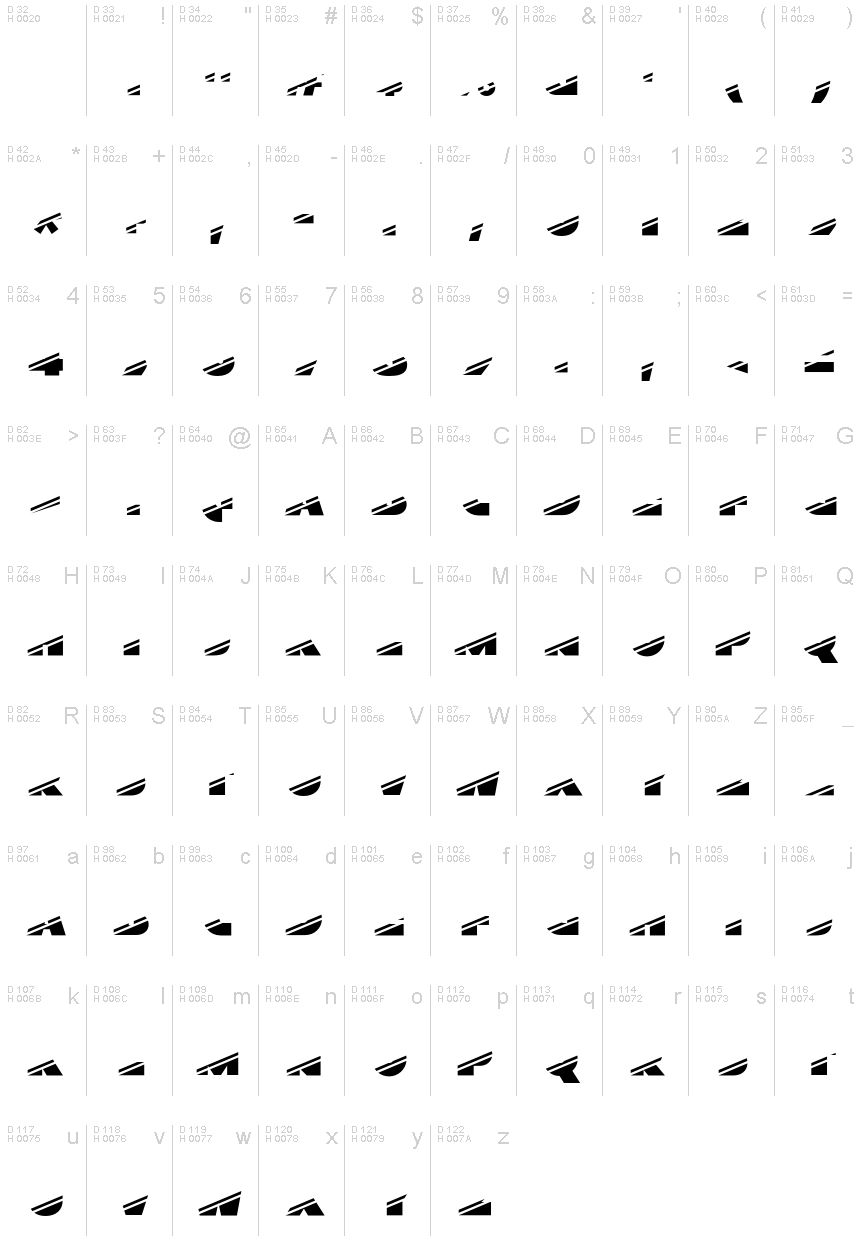
Xylitol is a multiple layer typeface you can use for creating chromatic, 3D effects. Its designed so the letters fit tightly together like Tetris blocks. There are four directional layers for the sides so you can simulate light coming from various directions. Theres a stripe layer which can be used to created a metallic shimmer effect. The Hollow style is made of thin outlines and has multiple uses. Use it on its own for a engineery, blueprint look. Make it black and overlay it on solid colors for a stained glass effect. Set it to 50% gray and use a screen or color dodge effect at around 25% opacity to create a subtle sharpening effect. The solid layer can be offset to simulate a drop shadow. The Xylitol family includes a Solo style which has more conventional spacinghandy when you need accompanying flat text. An outline style is useful on its own of for doing layer transparency tricks. Xylitol supports lot of languages including Greek and Russian.
Its all about experimenting but here are some tips to get you started:
Youll need to use an application that allows you to overlay layers of text. Every application has a different way of dealing with this but generally, you type what you want, make several overlapping copies of the layer then alter each layers color and style.
Some applications, like Photoshop ignore the fonts vertical metrics so you may need to vertically shift some of the layers to align. The diamond (lozenge) ◊ character contains a registration cross-hair to help you get things lined up.
Make sure youre not using optical kerning in Adobe apps.
If youre using the front layer and all the edge layers, you might think its unnecessary to include the back layer. But the back layer can help obscure some of the background leaking through due to layer rendering imprecision. You might not need it but its there if you do.
If you plan on including the Hollow style, I recommend using it as the first layer and checking carefully for unwanted overlaps before copying the layer. For example, the T may overlap A a tiny bit. Thats the way the typeface is designedthe priority is to have the edges set tight. You can fix the overlaps by adjusting tracking. Its no fun if you add Hollow as the final layer, notice an overlap and realize that the tracking will have to be adjusted for each layer.
Xylitol Stripe
The 1970s were all about experimentation, and Xylitol is the typeface that perfectly embodies that spirit. It’s a geometric wonder that will take your designs to the next level with its unusual layer system. Imagine creating chromatic, 3D effects that pop off the page like a retro sci-fi movie. Xylitol has got you covered.
The typeface is designed to fit together tightly, like Tetris blocks, with four directional layers for simulating light from various angles. And if you want to add a metallic shimmer effect, the stripe layer is perfect for achieving that look.